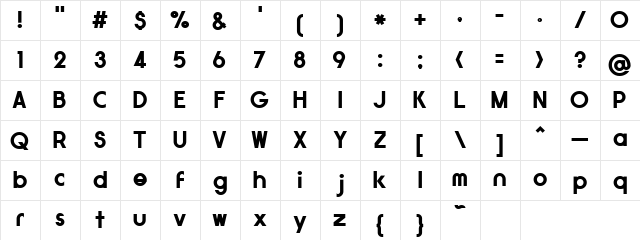
GauFontExpositionW Regular
Design Context for GauFontExpositionW Typeface
GauFontExpositionW is a composed and adaptable typeface that performs quietly and consistently across a wide range of design contexts.